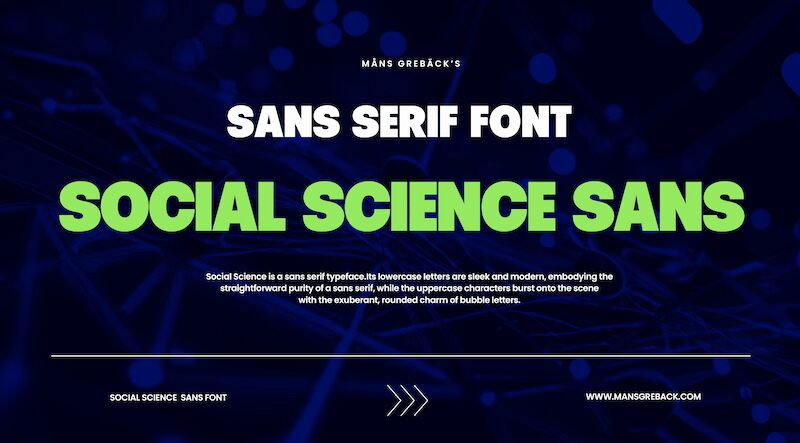
Social Science Sans PERSONAL Regular
Social Science Sans, designed by Mans Greback, is a captivating sans-serif font that exudes professionalism with a bold, striking presence. Its clean lines and geometric shapes convey a sense of authority and confidence, making it an excellent choice for a wide range of design applications. The font's distinct personality and unwavering aesthetic appeal make it a standout option, particularly for projects that require a sophisticated and polished look.
This versatile font can elevate the visual identity of corporate branding, editorial layouts, and presentation materials. Its bold, legible forms ensure clear communication, while the font's versatility allows it to adapt seamlessly to various design contexts, from impactful headlines to legible body text. Social Science Sans is a compelling choice for designers seeking a font that strikes the perfect balance between professionalism and visual impact.